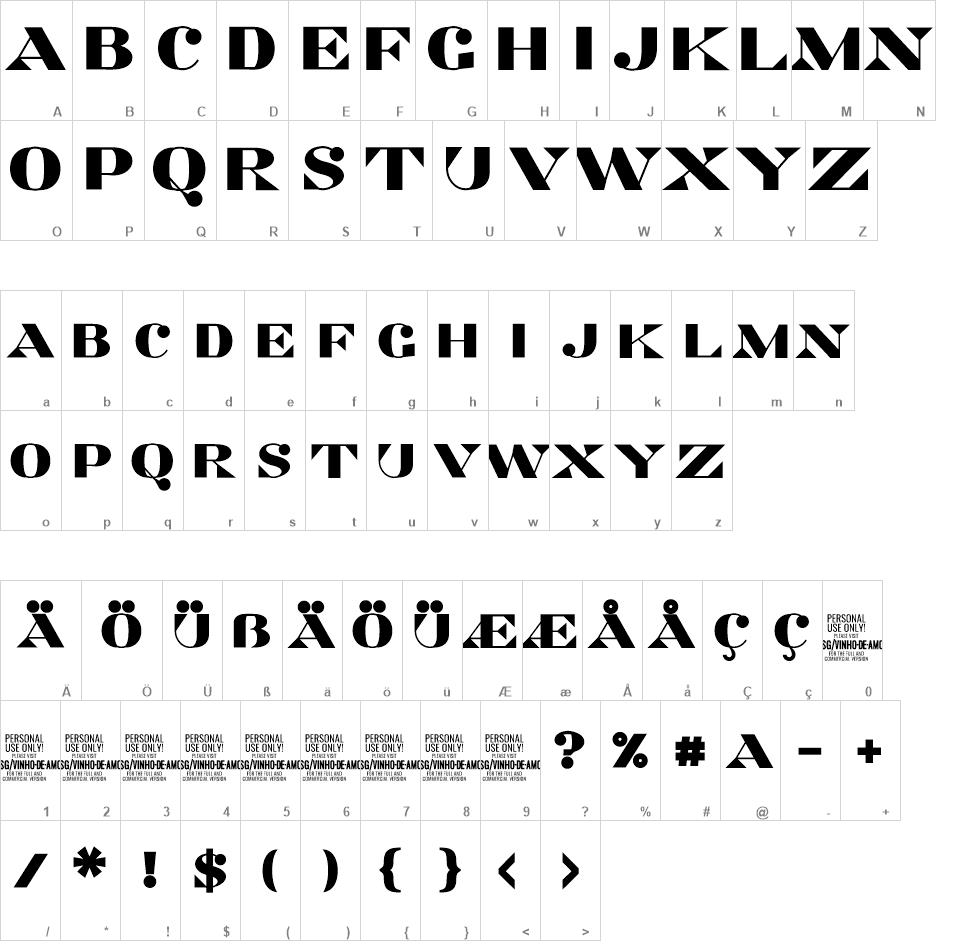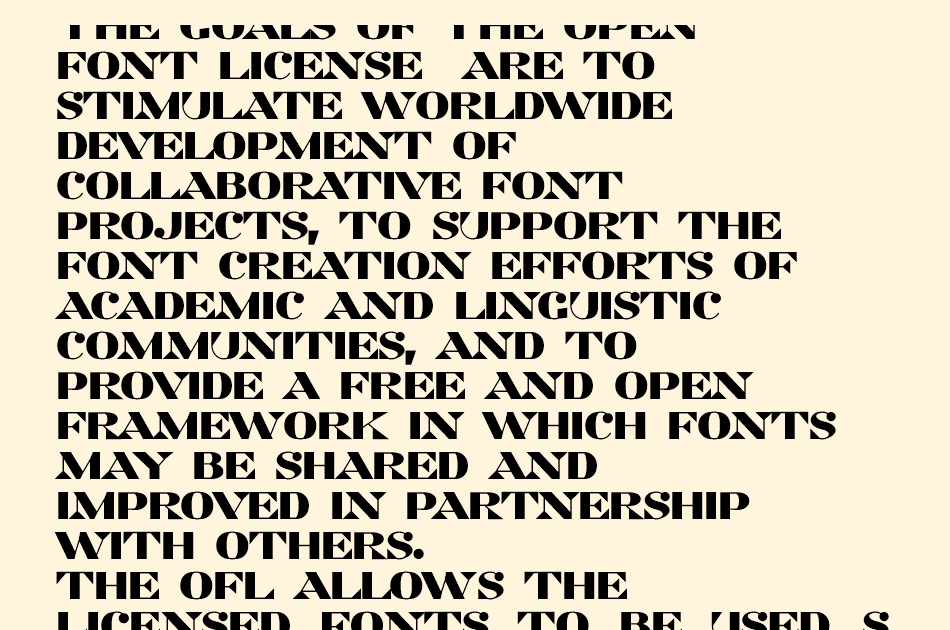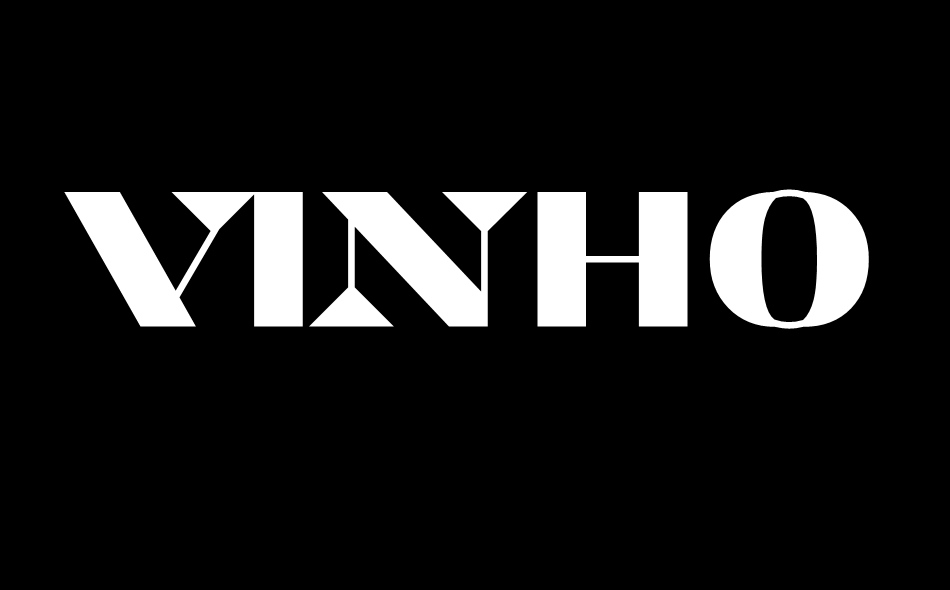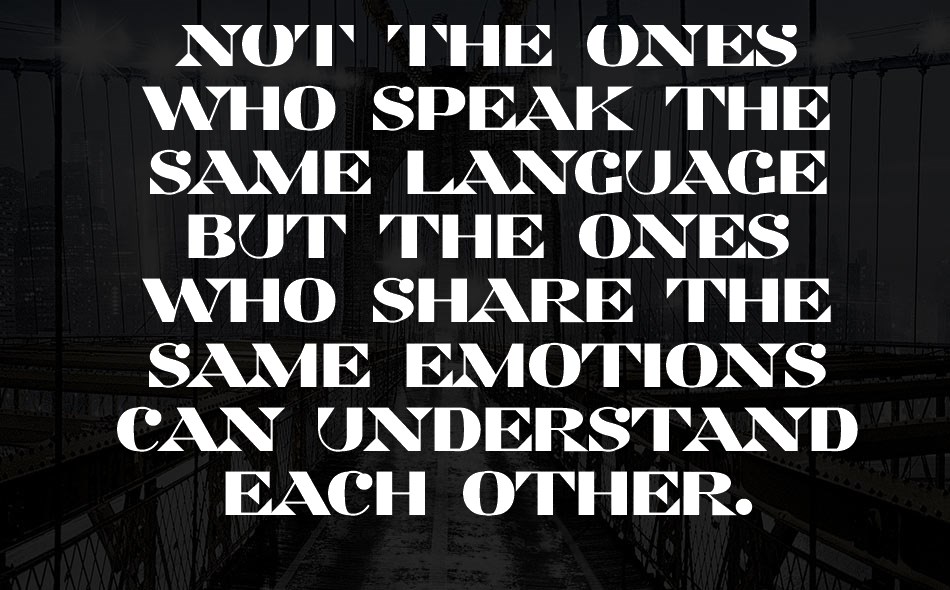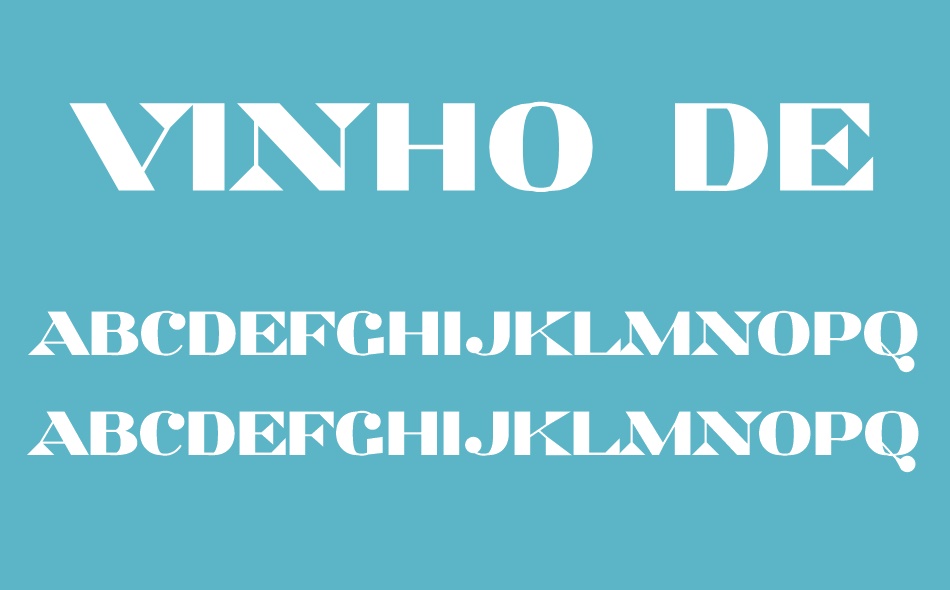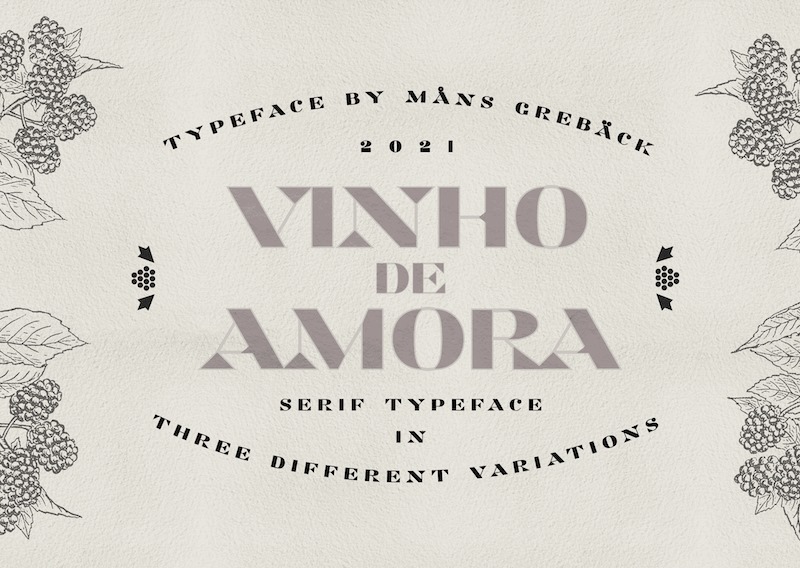
Vinho De Amora font
Vinho De Amora is a truly vintage serif font.
Drawn by Mans Greback between 2019 and 2021, this font is created with inspiration from wine cellars, painted typography and genuine quality produce.
It has a distinct sharp character, steady legs and a bold and wide appearance.
The Vinho De Amora family consists of three styles: Black, White and Stencil; each one geometrically consistent and complimenting, perfect for stacking on top of each other to create more variations.
The font is built with advanced OpenType functionality and has a guaranteed top-notch quality. It has extensive lingual support, covering all European Latin-based languages. It contains all characters and symbols you'll ever need, including all punctuation and numbers.